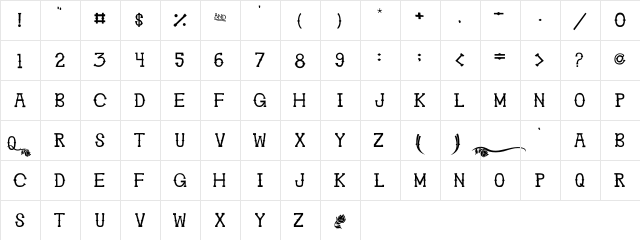
Ghosttown BC Plain
| Designer | Andrew Hart |
Design Context for Ghosttown BC Typeface
Ghosttown BC is a composed and adaptable typeface that performs quietly and consistently across a wide range of design contexts.